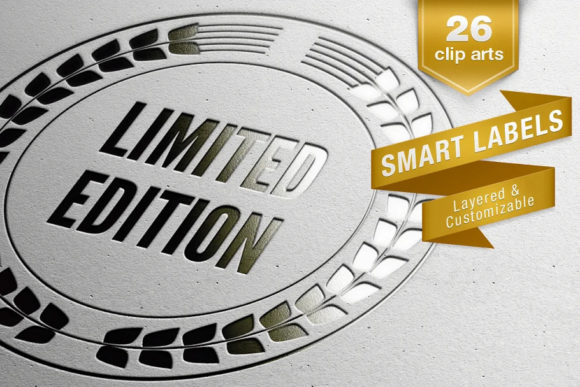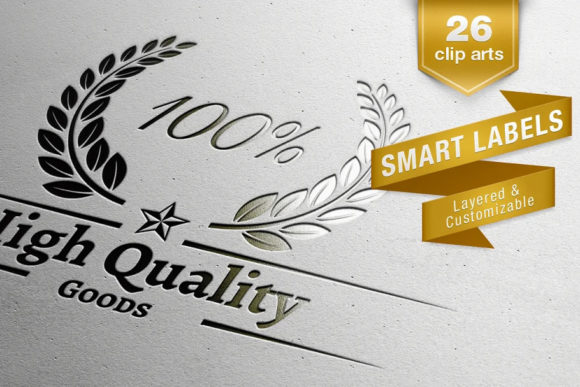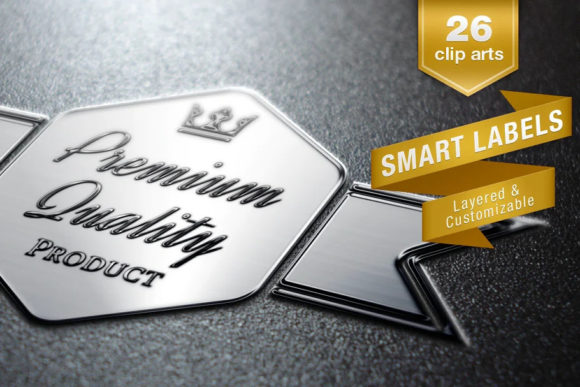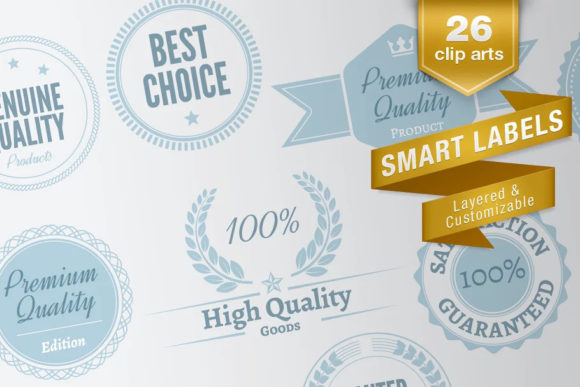
Smart Labels Font
About Smart Labels Font
Smart Labels is a unique and versatile dingbat font designed to help you generate colorful and creative designs by typing capital and small letters as well as numbers. Its label-themed illustrations make it perfect for projects that need a touch of efficiency and clarity, with its many beautiful and customizable cliparts, the results will be nothing short of breathtaking. Smart Labels is a straightforward and functional font, making it easy to use for a wide range of projects, from designing informative and detailed business cards to adding a touch of organization and clarity to a sale design or other visual element.
One of the best things about Smart Labels is its variety of customizable cliparts. The many label-centered pictures make Smart Labels unique and memorable for projects that need a touch of efficiency and clarity. Whether you’re designing a business card for a friendly florist or adding a touch of organization to a sale design or other visual element, Smart Labels will add a touch of style and character to your design.
Another great thing about Smart Labels is how easy to use it is. With a few keystrokes, users can create a wide range of colorful and memorable designs. The many gorgeous and customizable cliparts make Smart Labels easy to read and use, while its straightforward design makes it perfect for a wide range of projects. Both its small and large fonts come with clear, concise instructions to help users get started quickly.
All in all, Smart Labels is an incredible and memorable font that can help you create colorful and creative designs. Whether you’re designing a business card for a friendly florist or adding a touch of efficiency and clarity to a sale design or other visual element, Smart Labels’ many beautiful and customizable cliparts make it an excellent option for projects that need a touch of efficiency, organization, and professionalism.